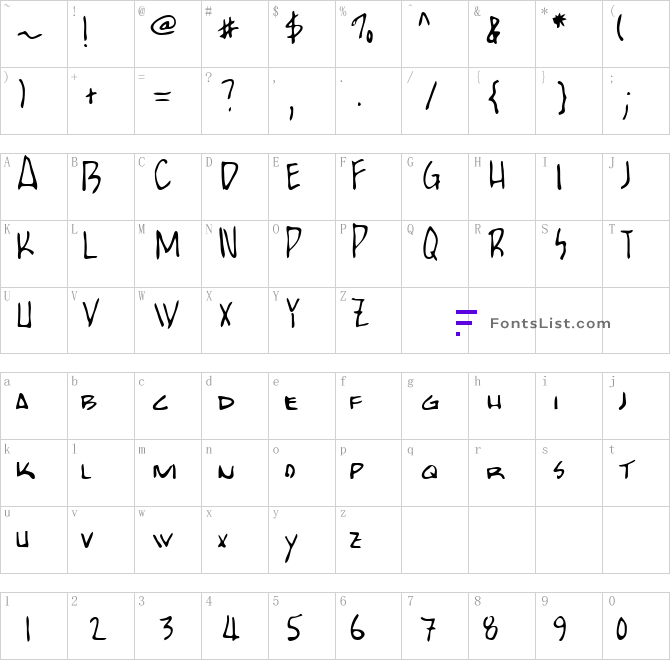
- Font Name:Aerne
Aerne-Regular.ttf is a very beautiful artistic font, Aerne-Regular.ttf is widely used in the design and printing of various books and pictures,Aerne-Regular.ttf has a strong visual impact,Aerne-Regular.ttf is a commonly used font in newspapers, magazines and books, and is used in posters, e-commerce Poster design, store design, logo design, font design and other fields.Aerne-Regular.